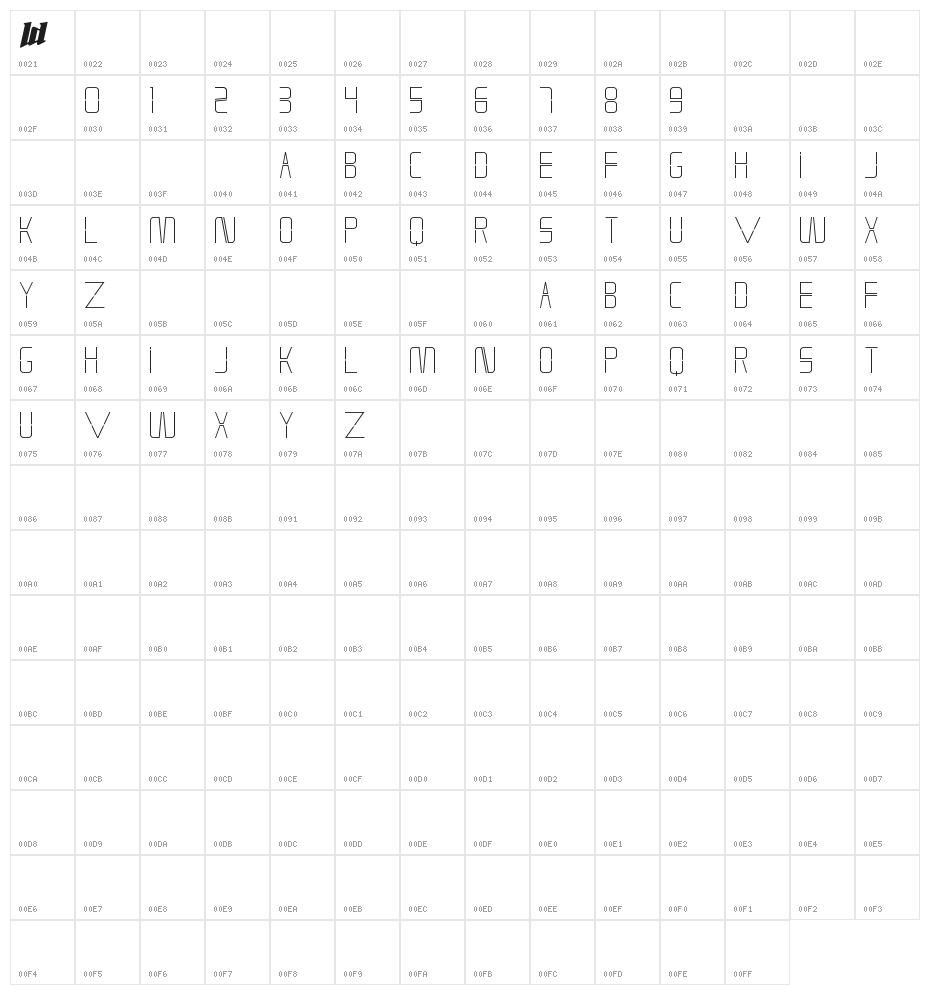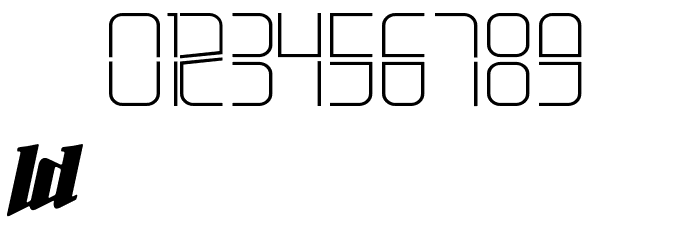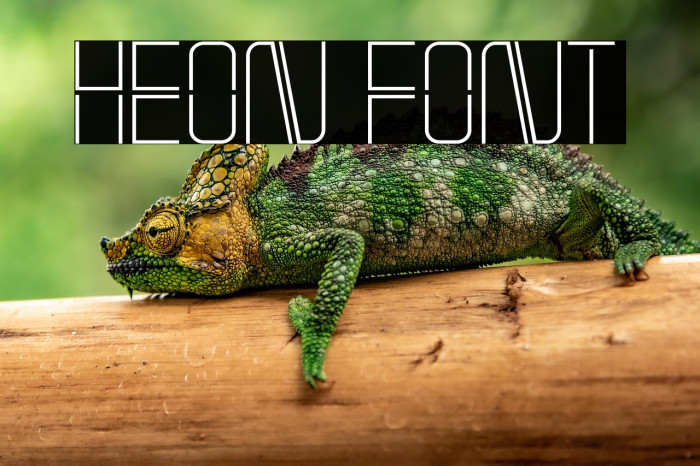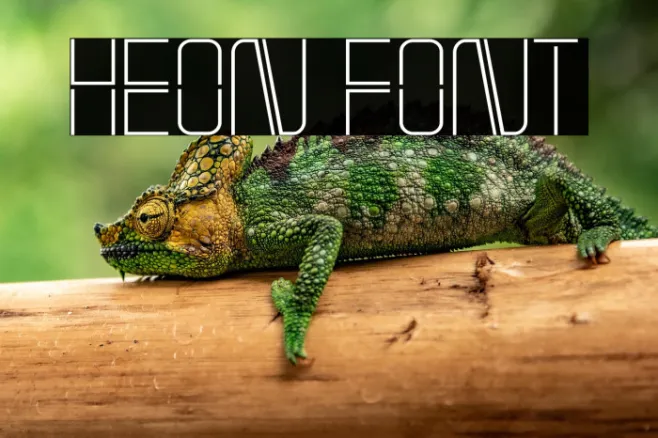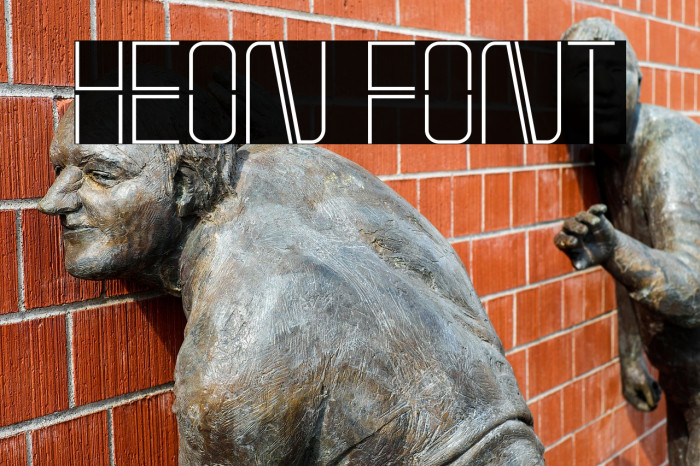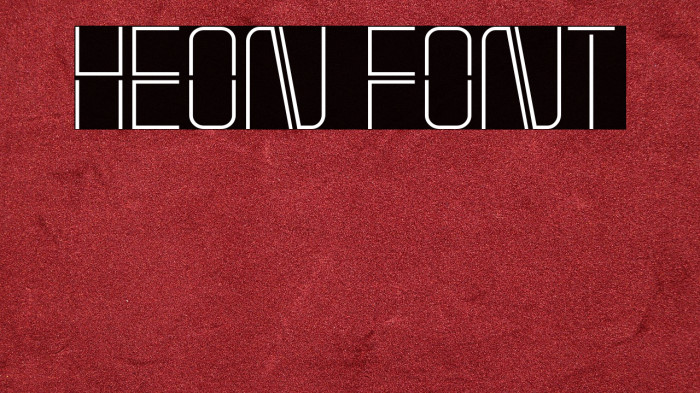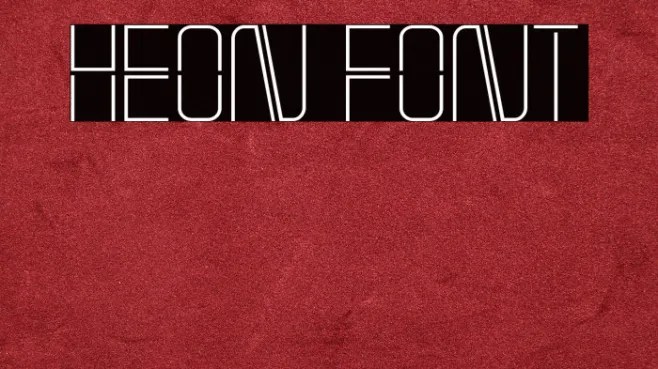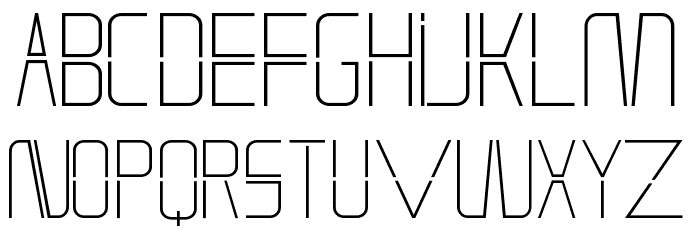
Heon Font
Heon Description
This font features a modern, geometric design with a distinct linear quality. The characters are constructed with thin, uniform lines that create a sleek and minimalist appearance. The uppercase and lowercase letters maintain a consistent height, contributing to a cohesive look. The numerals and special characters follow the same stylistic approach, ensuring uniformity across all glyphs. The overall aesthetic is clean and futuristic, making it suitable for contemporary design projects.
| Overall Style | Futuristic, Minimalist |
| Proposed Projects | Ideal for tech branding, modern posters, futuristic interfaces, and minimalist graphic design. |